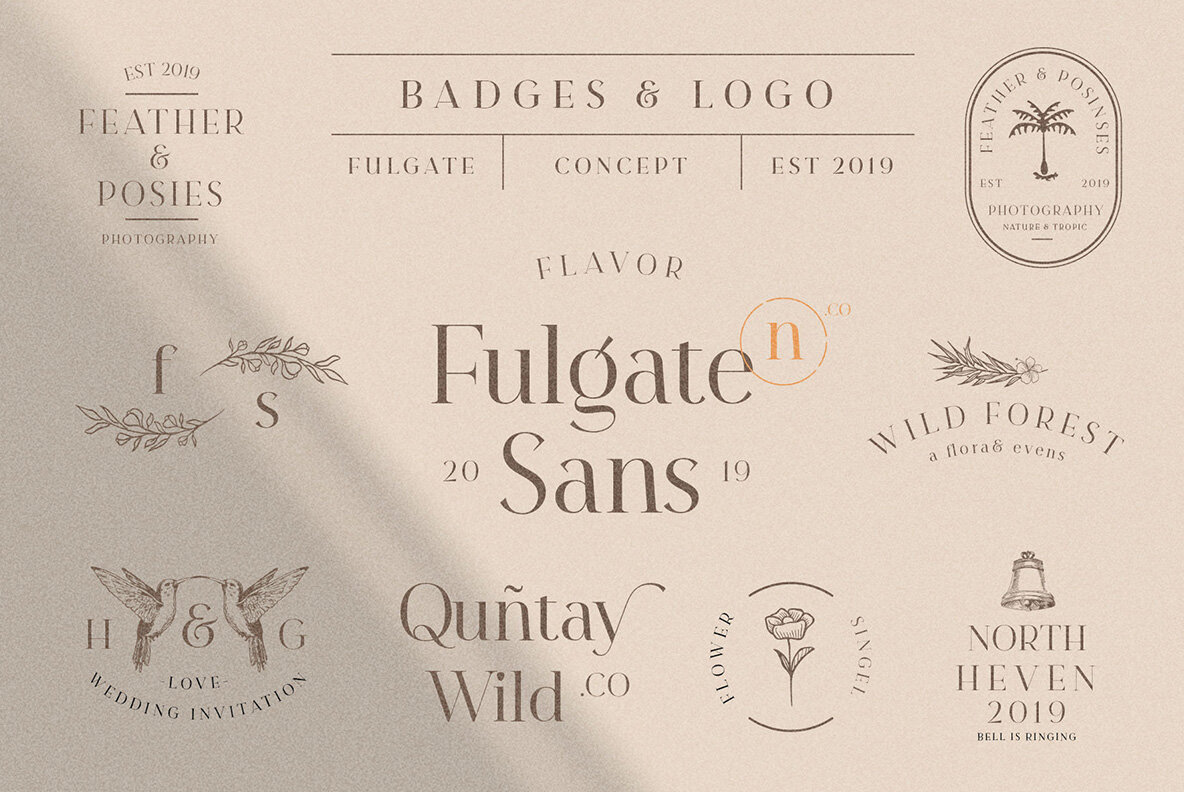
Fulgate Font
“Luxury in simplicity”.
A Family of Luxury Fonts called Fulgate. A Hype of summer themed bring us to expressing a thirsty of creating a product that can help you to choosing a fonts to your creations. Like as we are on the preview above, how the fonts can "stands" within your design. Since Fulgate are created on a 6 weight from Thin, Light, Regular, Medium, Semibold, Bold. You won’t be worried which one to fit to your creative design. Also, You can Mix it up all of it without worrying design collision.
Fulgate also comes with opentype features. The one was stand out was Capital Swash, it’s replacing the First letter that typed on Capital. even if you are type with all caps, it still stand out. If you think that all caps are not quite fit, write on with lowercase and turn on the features of Small Caps, a shape of capital but with lower heights. Lowercase also have a few make up with Alternate Characters, just to be noted, not all lowercase characters have an alternates, to keep a luxury feel and avoiding messy. The last are a feature on the numerical, Ordinals, Subscript, Superscript, and Fraction.